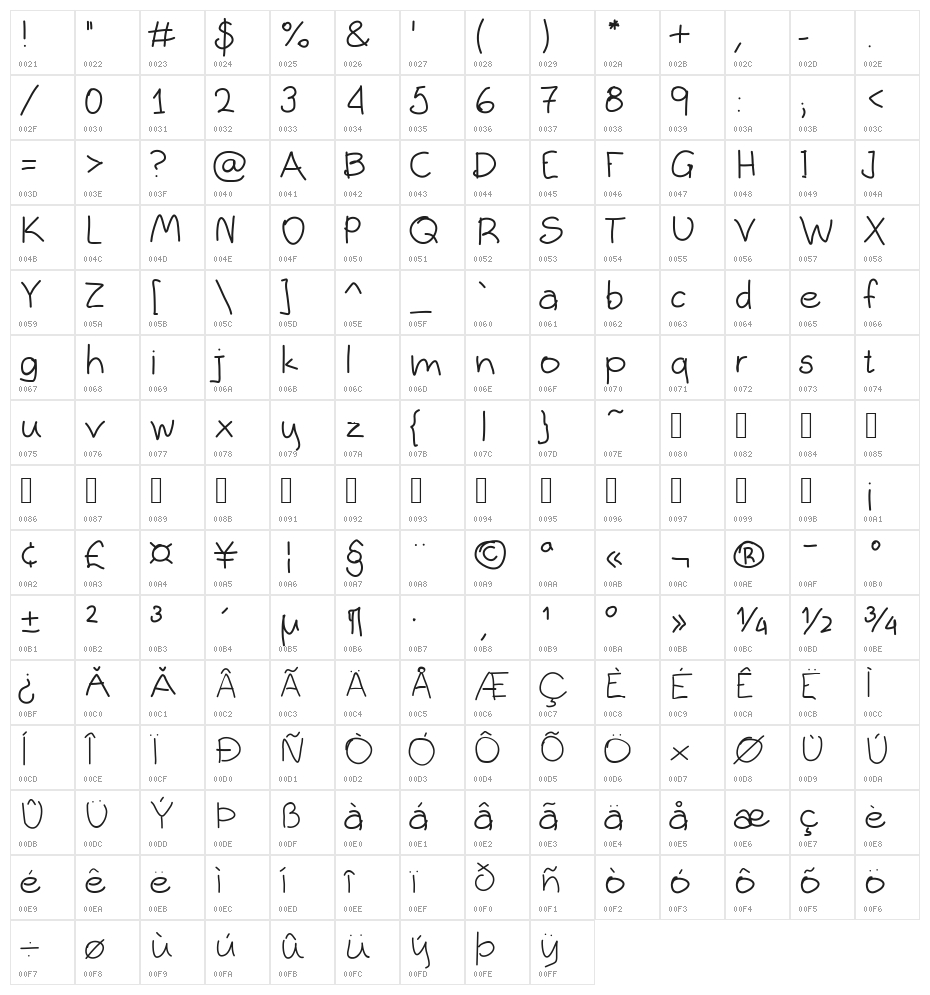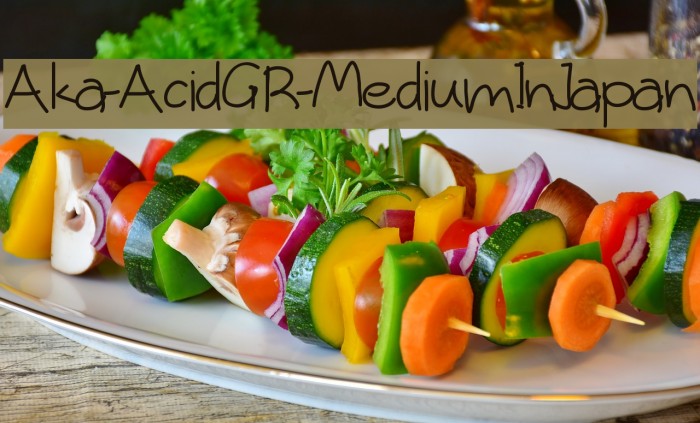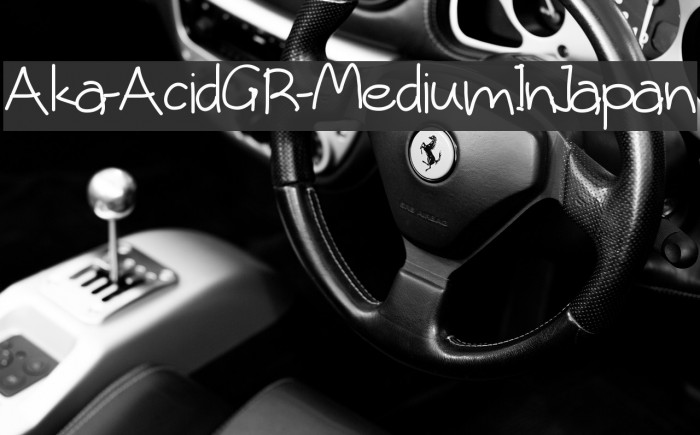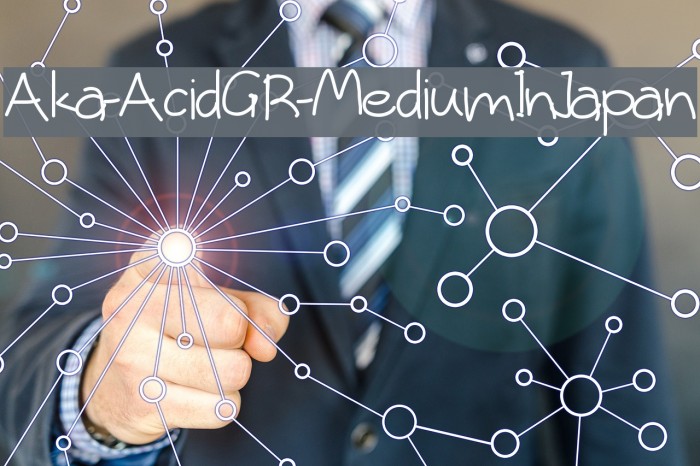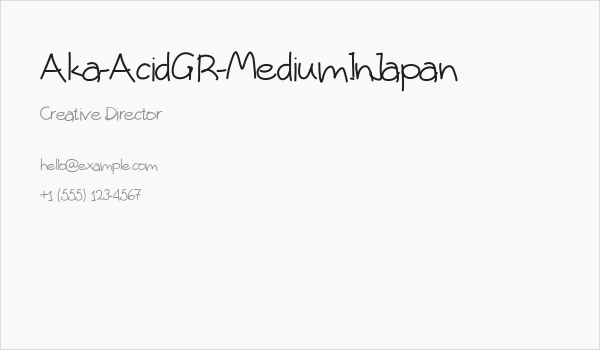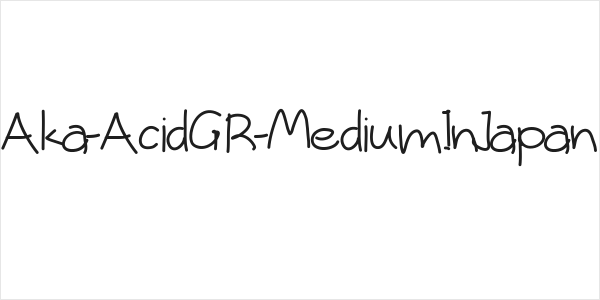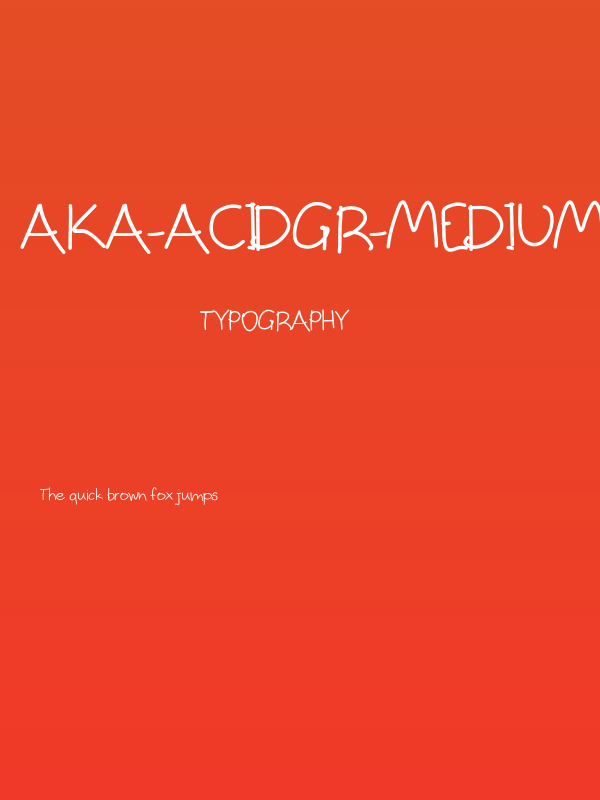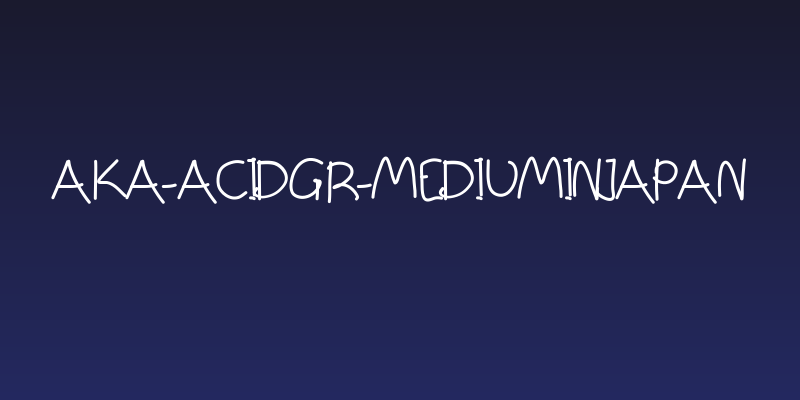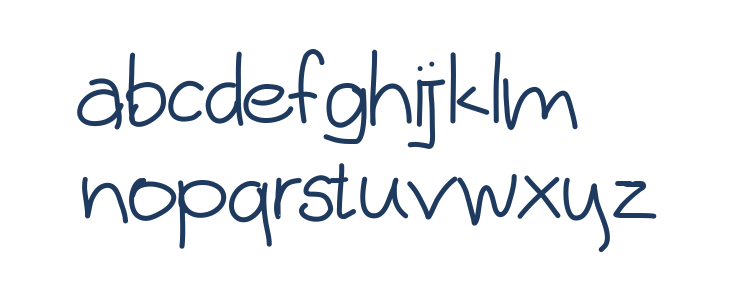
Aka-AcidGR-MediumInJapan Font
Aka-AcidGR-MediumInJapan Description
This font features a playful and casual handwritten style, characterized by its irregular strokes and informal appearance. The letters are slightly slanted, giving a dynamic and lively feel. The uppercase and lowercase letters maintain a consistent style, with rounded edges and a slightly uneven baseline, enhancing the handwritten effect. The numerals and special characters follow the same playful aesthetic, making the font versatile for creative projects. The overall design is approachable and friendly, suitable for conveying a sense of warmth and personality.
| Proposed Projects | Ideal for children's books, greeting cards, informal invitations, and playful branding. |